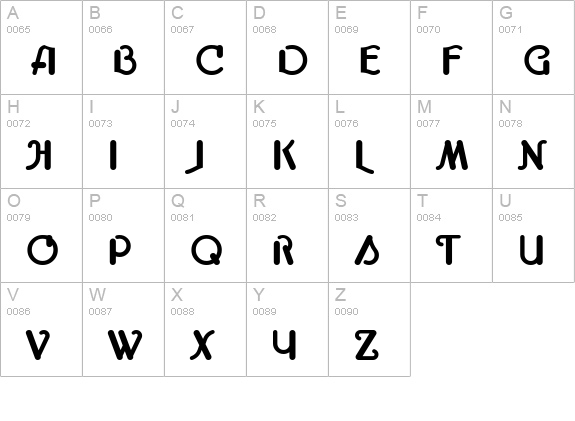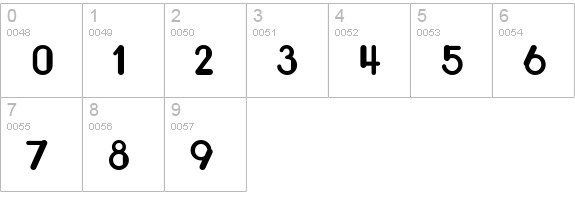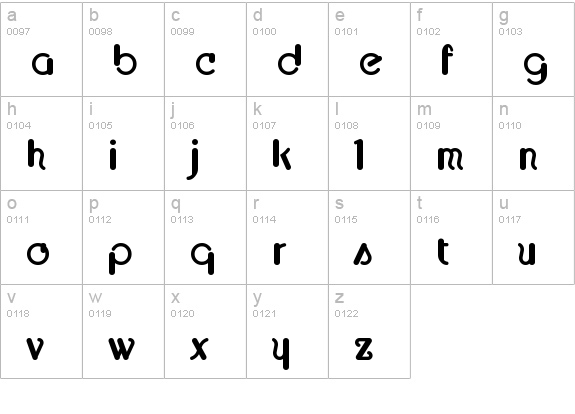
Cupola Bold Font Details
Cupola Bold is a strong, high-contrast variant in the Cupola typeface family \xE2\x80\x94 well suited to headlines, attention-grabbing titles, and strong calls-to-action.
Introducing Cupola Bold font, a striking and contemporary typeface that exudes confidence and sophistication. With its bold and distinctive letterforms, this font is perfect for making a bold statement in your design projects. Whether you're designing a poster, logo, or branding materials, Cupola Bold is sure to grab attention and leave a lasting impression. The best part? Cupola Bold font is available for free download at FontsMarket.com. That's right, you can elevate your designs with this premium font without spending a dime. Don't miss out on the opportunity to add this versatile and eye-catching font to your collection. Download Cupola Bold today and unleash your creativity!